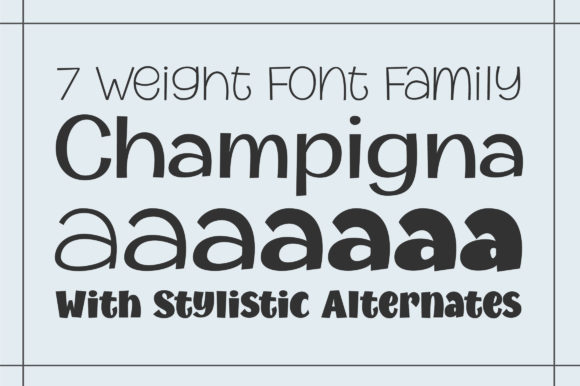
Champigna Font
Champigna Font is perfect for organic food branding, farm-to-table restaurants, gourmet mushroom farms, artisanal cooking classes, natural health products, forest foraging tours, sustainable agriculture companies, earthy wellness centers, rustic market signage, and botanical lifestyle brands.
Champigna Font creates excitement because it embodies the organic elegance and natural sophistication of forest cuisine with its earthy letterforms and mushroom-inspired character design. The font's organic curves and woodland aesthetic instantly convey authentic nature connection and gourmet quality, making any brand appear naturally sophisticated and genuinely earth-connected. Its carefully crafted forest details and mycological character create an immediate sense of natural abundance that captivates audiences seeking organic experiences, forest cuisine, and products that celebrate the remarkable beauty of wild foods and sustainable living.
The Champigna Font family includes multiple weights and styles: Regular, Bold, Light, Medium, Italic, Condensed, Extended, Organic, Natural, and Forest versions. Each variant maintains the font's signature earthy character while offering different levels of organic styling and natural authenticity suitable for various sustainable food and forest-themed applications.
This organic typeface brings the authentic spirit of forest foraging into contemporary sustainable design with remarkable natural appeal and earthy sophistication. Champigna Font Free Download provides organic food brands and sustainable enterprises with access to premium nature-inspired typography that embodies the essence of wild foods and forest cuisine culture. The font's natural design and organic authenticity make it ideal for businesses seeking to establish meaningful connections with environmentally conscious audiences who appreciate sustainable living, wild foods, and the transformative power of connecting with nature through authentic forest experiences. Whether you're creating branding for organic restaurants, designing materials for sustainable farms, developing packaging for wild food products, or producing marketing content for forest tourism ventures, this font delivers the organic atmosphere that resonates with audiences seeking genuine nature connection, sustainable cuisine, and the profound satisfaction that comes from experiencing authentic forest flavors. Its versatile design ensures excellent performance across both rustic printed materials and natural digital applications while maintaining the character of authentic forest typography. The font excels in applications requiring sustainability credibility and natural appeal. Organic food professionals appreciate its ability to convey forest authenticity while remaining highly functional for various sustainable communications and natural food promotional materials. The comprehensive character set includes botanical symbols and extensive international language support, making it perfect for global organic brands and international sustainable food organizations seeking to communicate authentic forest cuisine, natural living values, and organic food excellence to diverse worldwide audiences who embrace sustainable living, seek natural food experiences, and value the transformative power of authentic forest cuisine that connects people with the earth's natural abundance through responsible foraging and sustainable food practices.